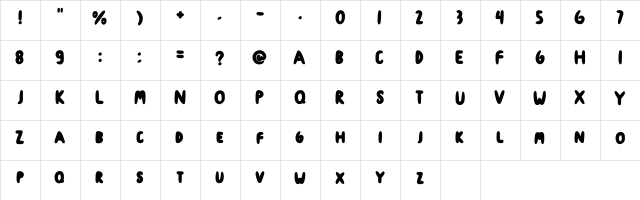
Cookies Roma Regular
Design Context for Cookies Roma Typeface
Cookies Roma is a composed and adaptable typeface that performs quietly and consistently across a wide range of design contexts.